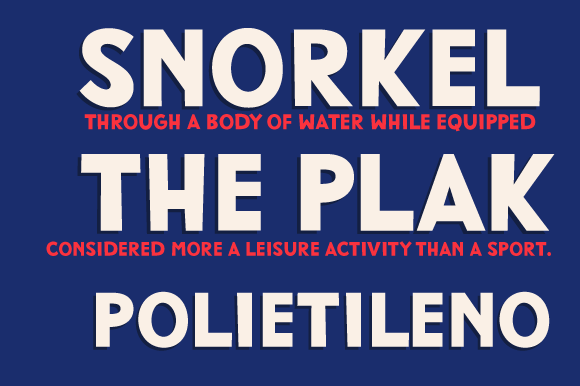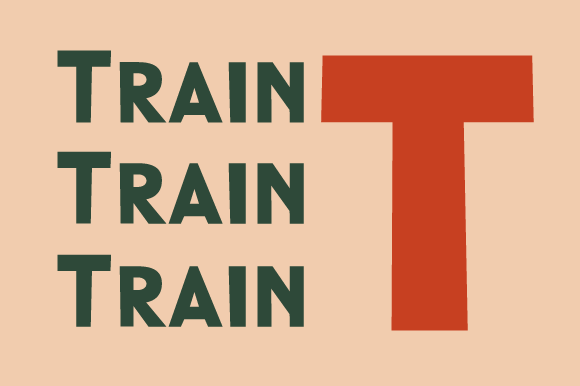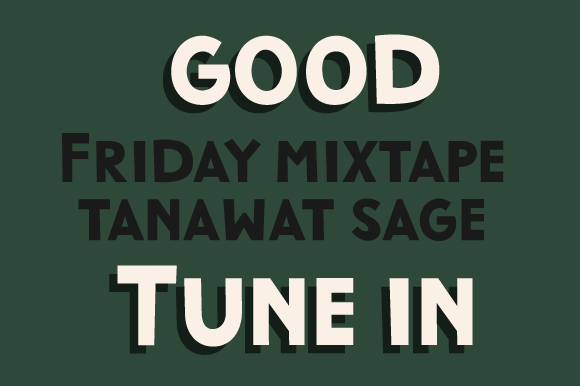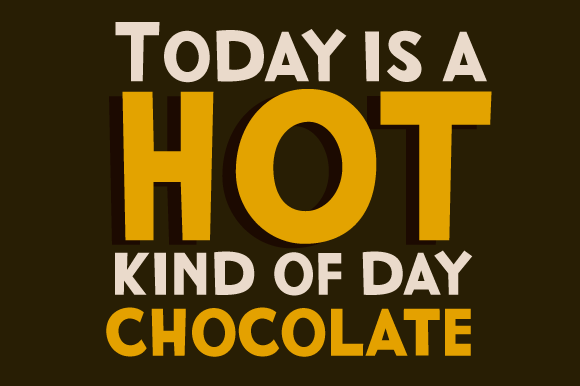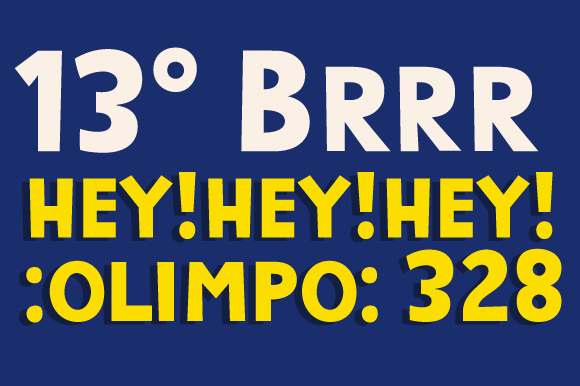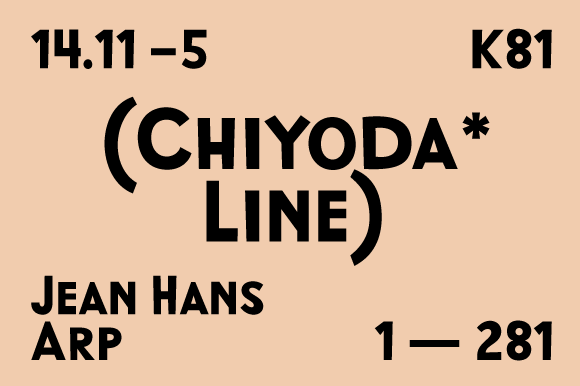
Introduction to Maryhoid Font
Have you ever been stuck on a creative project, desperately searching for the perfect font to bring your idea to life? You’ve scrolled through countless design resources, but nothing seems to capture the essence of your vision. Well, your search is over. I recently stumbled upon the Maryhoid Font, and I’m excited to share its awesomeness with you.
As a designer, I know how crucial it is to have a high-quality font that can elevate your creative project. The Maryhoid Font is a game-changer, offering a bold and chunky character style that’s incredibly versatile. Whether you’re working on a graphic design project or a digital art piece, this font is sure to make your work stand out.
What I love about the Maryhoid Font is its simplicity, which makes it a valuable resource for designers. Plus, it’s available for free download, complete with a transparent background, making it easy to integrate into any project. Get ready to take your creative ideas to the next level with the Maryhoid Font!
Key Features of Maryhoid Font
- High-quality design resource suitable for various creative projects, including graphic design and digital art.
- Designed with precision and attention to detail, resulting in a crisp and clean visual appearance.
- Unique characteristics include its modern and minimalist aesthetic, making it an ideal choice for contemporary design projects.
Honest Review: Maryhoid Font
As a designer, I’m always on the lookout for high-quality design resources to elevate my creative projects. I recently stumbled upon the Maryhoid Font, and I’m excited to share my honest review with you.
- Unique and quirky design style that adds a touch of personality to any project
- May not be suitable for formal or corporate projects due to its playful design style
- Limited character set, which may cause issues for longer text blocks
Overall, I think the Maryhoid Font is a great addition to any designer’s toolkit. Its unique design style and free download make it a great option for creative projects. However, its limitations should be taken into consideration before using it in more formal or complex projects.
The Maryhoid Font is commonly used for logos, brochures, and business cards. Its high-quality design makes it perfect for any creative project that requires a professional touch.